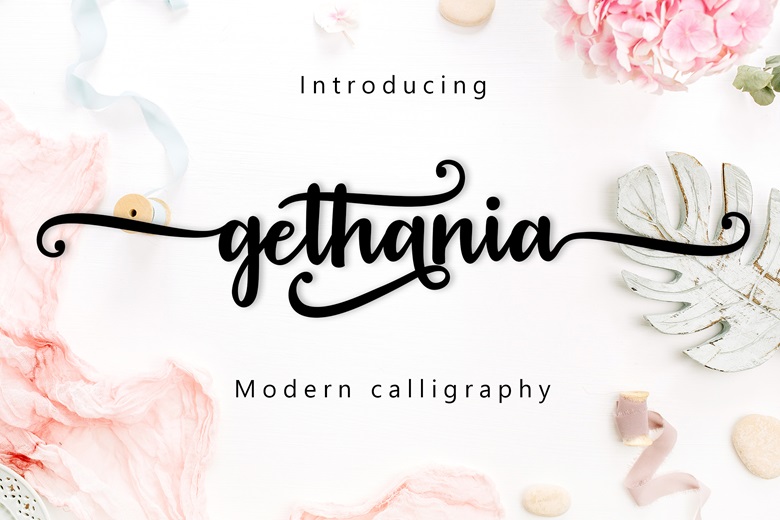
Gethania Font
Gethania is an amazing script font. It includes beautiful swashes and has a striking, yet elegant look which gives you the opportunity to use it for various designing needs.
Gethania Calligraphy Script Font